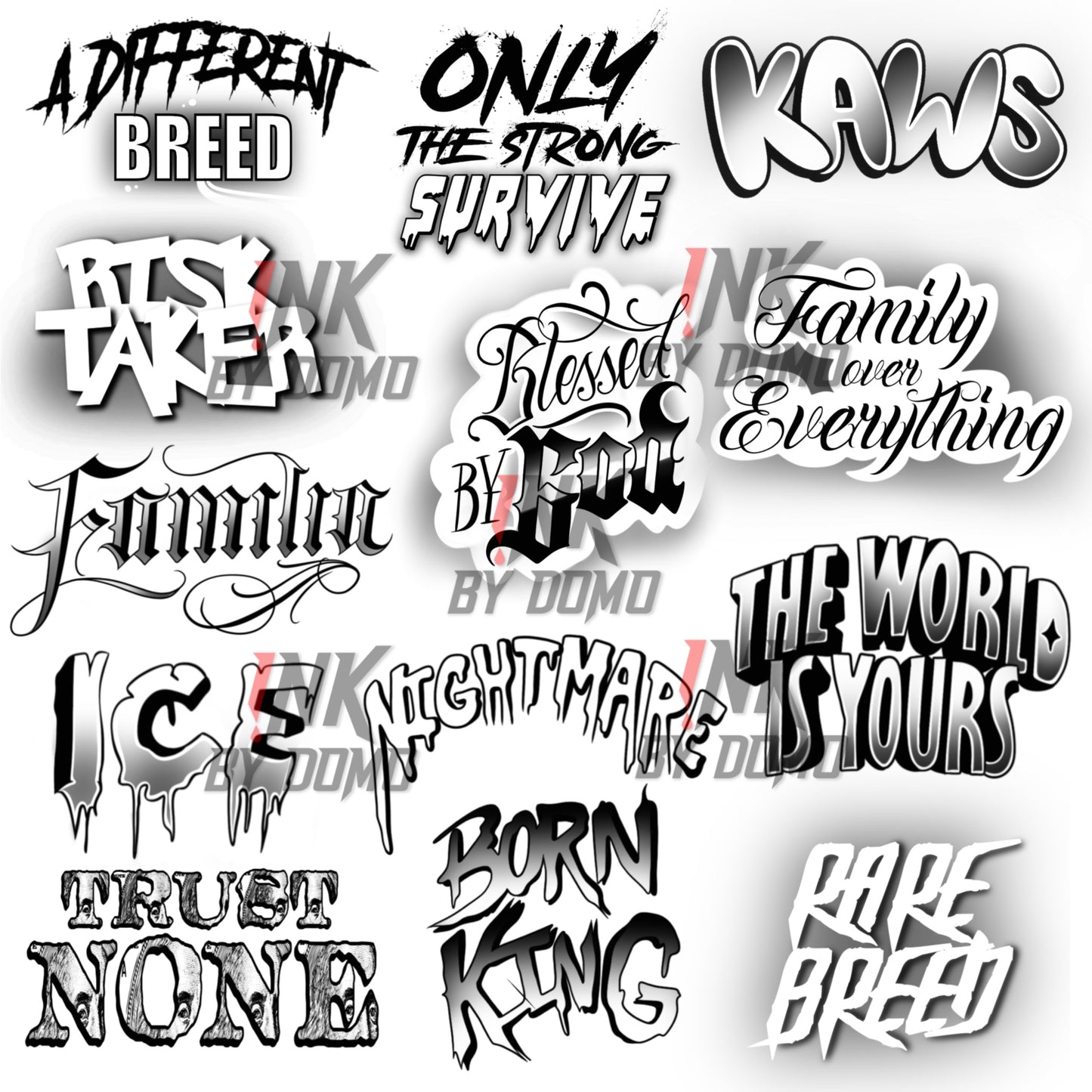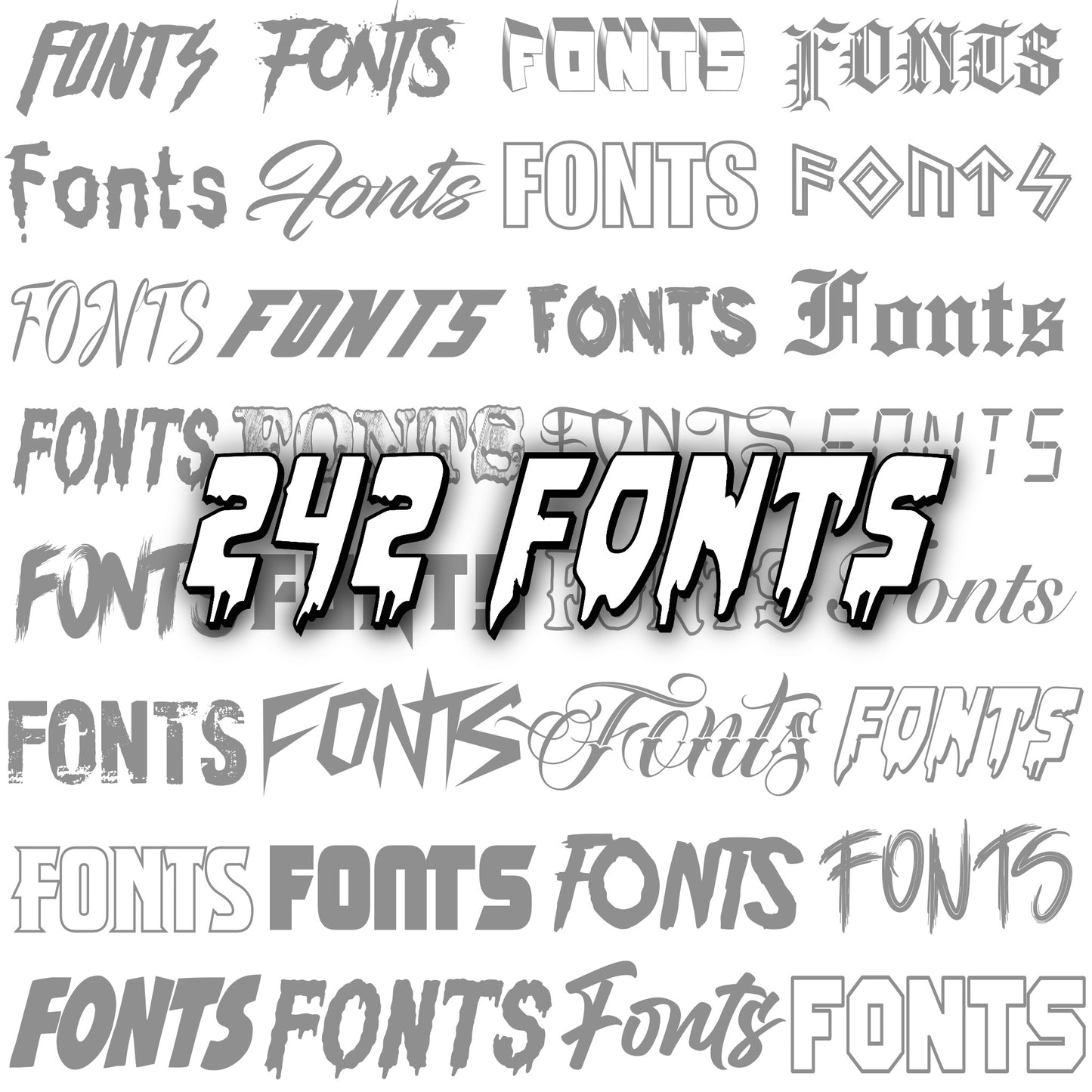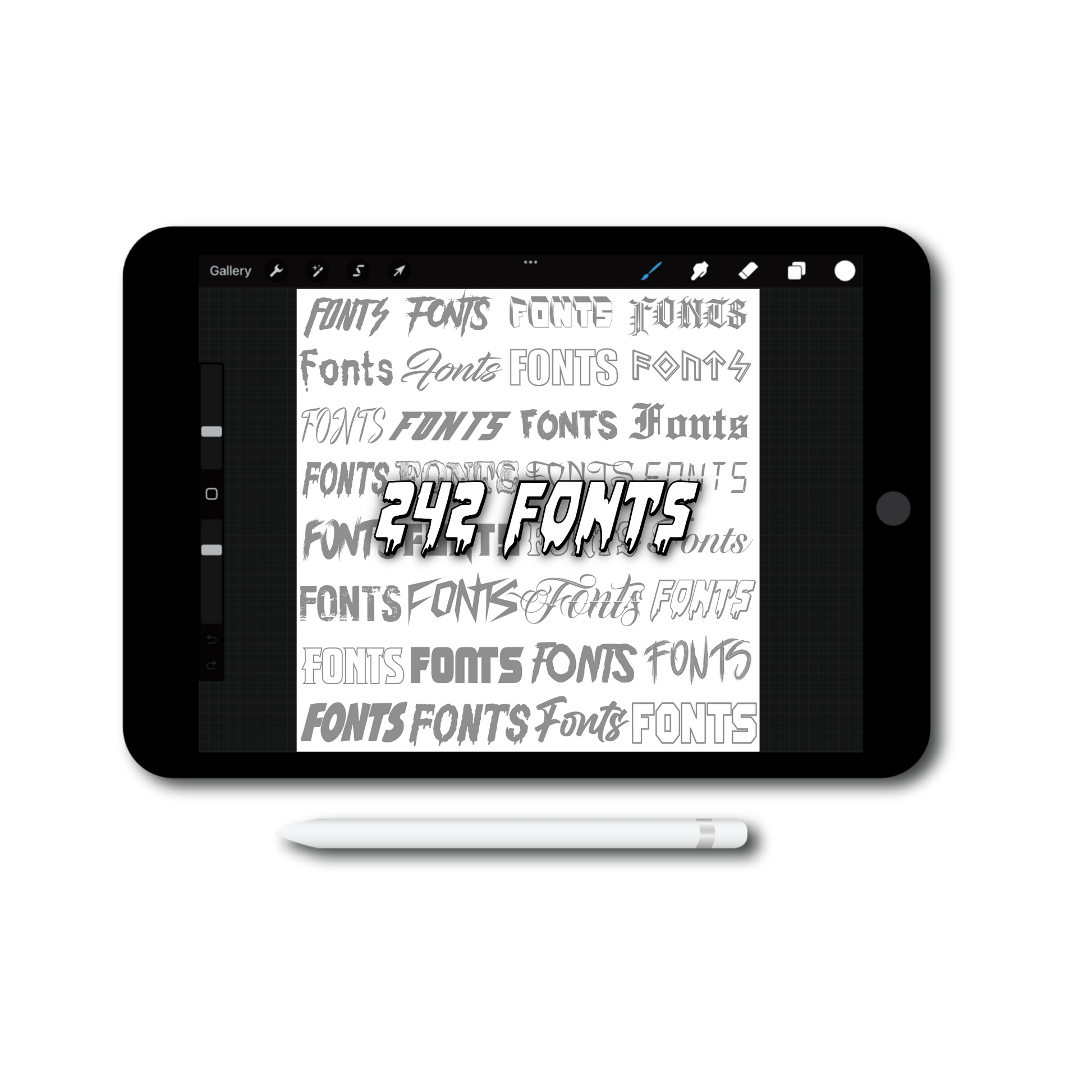
Procreate Fonts
Enhance your artistic journey with these 242 Procreate Fonts. This bundle includes a vast array of meticulously crafted fonts, ranging from elegant scripts to bold serifs. Compatible with Procreate, these fonts offer seamless integration, allowing you to effortlessly add personality and flair to your designs.